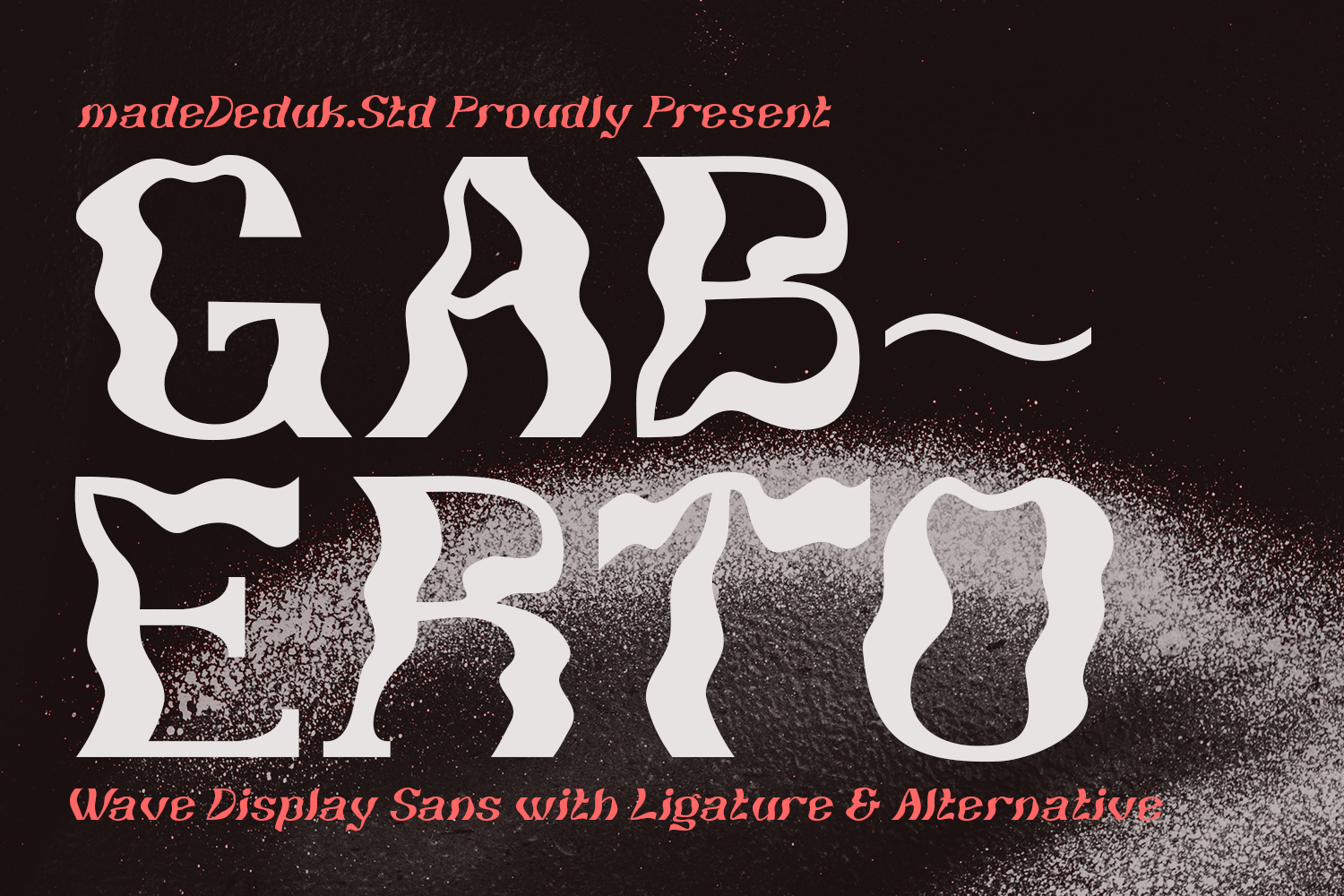
Gaberto Display Font
Gaberto is a display sans serif, wave, simplistic, high-contrast sans serif that is at home in high-end fashion and cultural environments you can explore and combine. This font is perfectly made to be a, product packaging, invitation, quotes, label, poster, logo whether you’re creating digital content or printed materials.
Feature
•  Uppercase & Lowercase
•  Number & Symbol
•  International Glyphs
•  Multilingual support
•  Alternative
•  Ligature